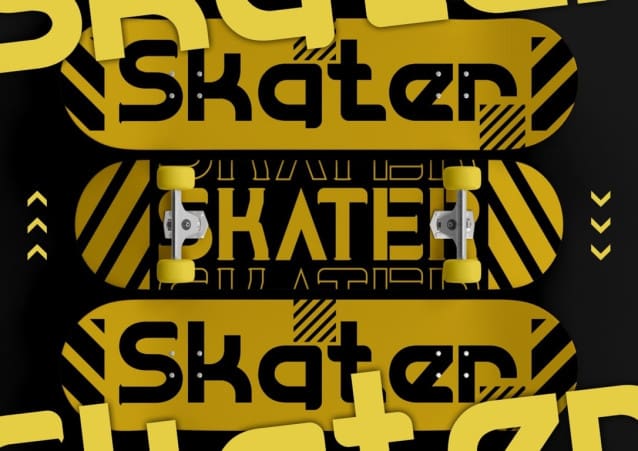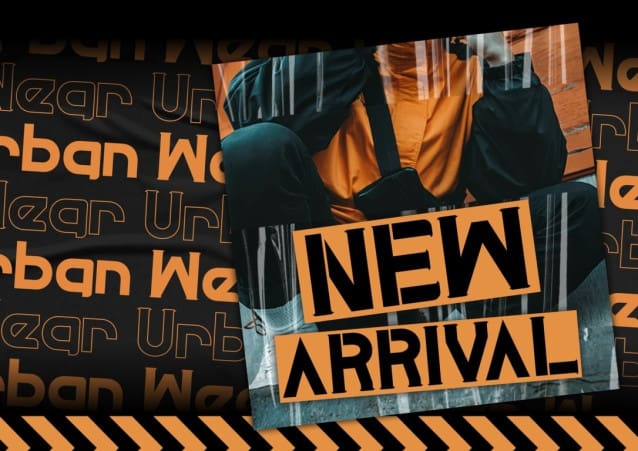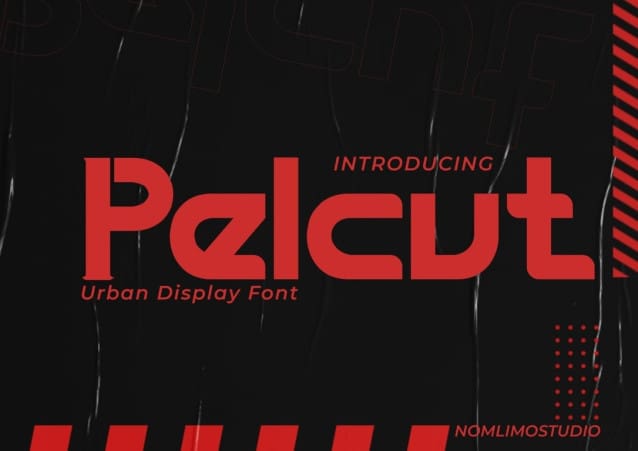
Pelcut Font
Pelcut Font, a modern sans-serif typeface that is ideal for headlines, logos, and even body text. With its meticulously crafted letters and well-balanced strokes, Pelcut adds a touch of elegance to your designs. For a distinct and unique look, consider incorporating the stencil style, which will bring a distinctive aesthetic to your design. Let Pelcut elevate your designs with its versatile and stylish appeal.